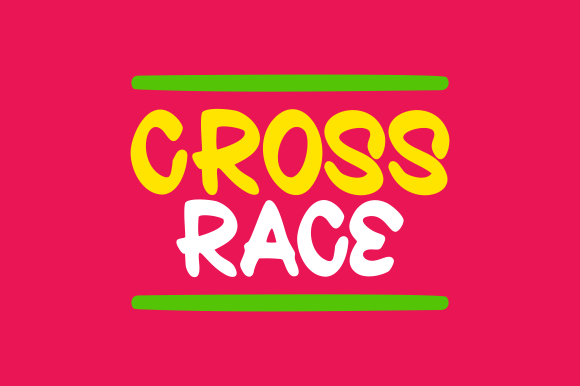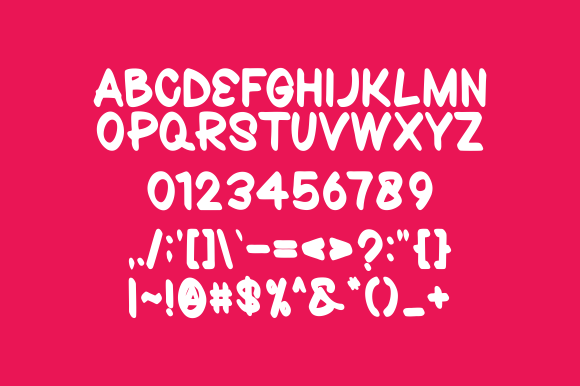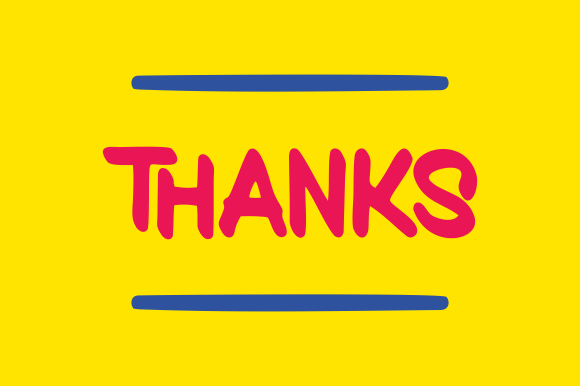
Introduction to Delfintor Font
You know that moment when you’re brainstorming ideas for a creative project, and suddenly, a spark of inspiration hits you? It’s like a lightbulb goes off in your head, and you can envision the perfect font to bring your design to life. For designers like you, discovering a high-quality font that perfectly captures the essence of your project can be a game-changer.
That’s where the Delfintor Font comes in – a vibrant and playful typeface that’s sure to elevate your design to the next level. With its unique appearance and versatility, Delfintor Font is the perfect design resource for any creative project, from branding and logos to packaging and advertising.
Whether you’re looking for a free download or a premium font to add some extra flair to your design, Delfintor Font is a valuable addition to any designer’s toolkit. Its transparent background and high-quality design make it a standout choice for designers seeking a reliable and trustworthy font to use in their projects.
Key Features of Delfintor Font
- Designed with a unique, modern style that sets it apart from other fonts
- Perfect for use in graphic design, digital art, and other creative projects
Honest Review: Delfintor Font
I recently had the opportunity to work with the Delfintor Font, and I must say it’s been a game-changer for my design projects. This high-quality font is a fantastic resource for any creative project, offering a unique and stylish look that’s perfect for adding a touch of elegance to your designs.
- ✨ The font’s transparent background makes it incredibly versatile, allowing you to easily combine it with other design elements.
- ✨ The font’s high-quality design ensures that it looks great at various sizes and resolutions.
- ⚠️ The font may not be suitable for very small text sizes, as the details can get lost.
- ⚠️ Some users may find the font’s unique style to be overwhelming or difficult to read.
Overall, I’m thoroughly impressed with the Delfintor Font. Its high-quality design, versatility, and free availability make it an excellent addition to any designer’s toolkit. If you’re looking for a unique and stylish font to elevate your creative project, the Delfintor Font is definitely worth checking out.
The Delfintor Font is suitable for various creative projects, including graphic design, digital art, and typography-based designs. Its versatility and high-quality design make it an excellent choice for designers seeking a unique and professional look.